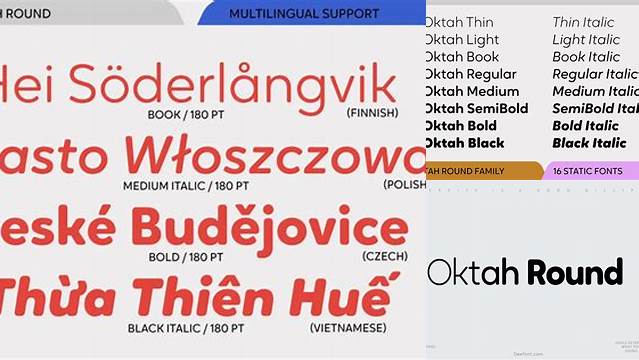
Introduction to Oktah Round Font Family
Oktah Round Font Family is a modern and versatile typeface that has garnered significant attention in the design world. Its clean, rounded lines and geometric structure make it a popular choice for a wide range of applications, from branding and logo design to web and print media. Its appeal lies in its ability to convey both a sense of professionalism and approachability, making it a valuable asset in any designer's toolkit. Understanding the Oktah Round Font Family requires delving into its characteristics, exploring its various weights and styles, and recognizing its impact on visual communication. The Oktah Round Font Family is not just a font; it's a design tool that can shape the personality of a project. Choosing the right font can make all the difference in how your message is received, and Oktah Round's versatility makes it a strong contender for many projects. We'll explore how this font has been used in various contexts, highlighting its strengths and potential limitations. By the end of this guide, you'll have a solid understanding of the Oktah Round Font Family and how to effectively utilize it in your design endeavors. Its balanced aesthetics make it suitable for body text as well as headlines, providing designers with a comprehensive solution for their typographic needs. From minimalist designs to more elaborate compositions, Oktah Round adapts seamlessly, enhancing readability and visual appeal. The font's rounded terminals add a touch of warmth, making it feel more inviting than some of the sharper, more angular fonts available. This friendly quality can be particularly beneficial in projects aiming to create a positive and welcoming impression. Its geometric foundation ensures clarity and legibility, even at smaller sizes, making it a reliable choice for a variety of applications. In the ever-evolving landscape of typography, Oktah Round stands out for its contemporary yet timeless design, offering a fresh perspective while maintaining a classic sensibility.
When diving into the specifics of the Oktah Round Font Family, several key features and characteristics immediately stand out. Firstly, the rounded terminals are a defining aspect, giving the font a softer, more approachable feel compared to fonts with sharp, angular edges. This makes it particularly effective in designs aiming for a friendly and welcoming tone. The geometric construction of the font is another critical element, providing a sense of structure and clarity. This ensures that the text remains legible and balanced, even at smaller sizes or in dense blocks of text. Each letterform is carefully crafted with precision, reflecting a commitment to both aesthetics and functionality. The font family typically includes a range of weights, from light to bold, offering designers versatility in their typographic choices. This allows for the creation of visual hierarchy and emphasis within a design, ensuring that key elements stand out. The inclusion of italic styles further expands the possibilities, providing options for nuanced expression and visual contrast. Oktah Round's balanced proportions make it suitable for both headlines and body text, a valuable trait for projects requiring a cohesive and unified look. Its clean lines and open counters (the spaces within letters like 'o' and 'p') contribute to its readability, even in challenging conditions. This is particularly important for web design, where text needs to be clear and easily digestible across various screen sizes and resolutions. The Oktah Round Font Family also tends to have a relatively generous x-height (the height of the lowercase letters), which enhances readability and gives the font a more contemporary appearance. This feature contributes to its overall legibility and makes it a practical choice for extended reading. Moreover, the font’s versatility extends to its compatibility with different design styles and aesthetics. Whether used in a minimalist, modern design or a more complex, illustrative composition, Oktah Round integrates seamlessly, adding a touch of sophistication and clarity. Its adaptability is one of the key reasons for its popularity among designers. In the realm of typography, Oktah Round strikes a harmonious balance between form and function, offering a design solution that is both visually appealing and highly practical. Its unique blend of softness and structure makes it a standout choice for a wide array of projects.
Best Practices for Using Rounded Fonts
Using rounded fonts like the Oktah Round Font Family effectively requires understanding their unique characteristics and applying best practices in typography. Rounded fonts, with their soft edges and approachable aesthetic, can add a friendly and modern touch to your designs. However, they also have certain limitations and considerations that you should keep in mind. One of the primary best practices is to consider the overall tone and message of your design. Rounded fonts tend to convey a sense of warmth, friendliness, and approachability, making them ideal for projects that aim to create a positive and welcoming impression. They work well in designs targeting children, creative industries, or brands that want to project a modern and innovative image. However, rounded fonts may not be the best choice for projects that require a more serious, formal, or authoritative tone. In such cases, a more traditional serif or a sharp sans-serif typeface might be more appropriate. Legibility is another crucial factor to consider. While Oktah Round Font Family is generally legible, rounded fonts can sometimes be less readable than fonts with sharper, more distinct letterforms, especially at smaller sizes or in dense blocks of text. To ensure optimal legibility, pay close attention to letter spacing, line height, and font size. Increase letter spacing and line height if necessary to improve readability, and avoid using rounded fonts in very small sizes. Contrast is also essential. Pair rounded fonts with contrasting elements, such as bold colors or sharp geometric shapes, to create visual interest and balance. Avoid using rounded fonts exclusively throughout your design, as this can sometimes create a monotonous or overly soft look. Mix rounded fonts with other typeface styles to create a more dynamic and engaging composition. When using rounded fonts in headlines, consider using a bolder weight to make them stand out. In body text, a regular or light weight is usually preferable for readability. Experiment with different weights and styles to achieve the desired effect. Also, be mindful of the context in which the font will be used. Rounded fonts work well in both print and digital media, but it's essential to test how they look in different environments. Web fonts, in particular, should be optimized for readability across various browsers and devices. By following these best practices, you can effectively use rounded fonts like Oktah Round Font Family to create visually appealing and engaging designs that convey the right message.
The Oktah Round Font Family is a versatile and modern typeface that can add a touch of friendliness and sophistication to a wide range of design projects. Its rounded terminals and geometric construction make it a popular choice for branding, web design, and print media. While finding free downloads may require some effort, the font's unique characteristics and readability make it a valuable asset for designers. If you're unable to find Oktah Round, exploring alternatives like Montserrat, Lato, and Open Sans can provide similar aesthetic qualities and versatility. Remember to always verify the licensing terms before using any font in your projects, especially for commercial purposes. When using rounded fonts like Oktah Round, consider the overall tone of your design and apply best practices in typography to ensure optimal legibility and visual appeal. By understanding the font's features, exploring alternatives, and following best practices, you can effectively utilize Oktah Round Font Family (or its counterparts) to create compelling and engaging designs. The ability to choose and implement fonts strategically is a cornerstone of effective design, and Oktah Round offers a compelling option for those seeking a blend of modern aesthetics and approachable warmth. Its widespread use across various industries is a testament to its adaptability and timeless appeal. From startups to established brands, Oktah Round has proven its worth as a reliable and visually pleasing typeface. As you embark on your design journey, remember that typography is more than just selecting a font; it's about crafting a visual narrative that resonates with your audience. Oktah Round, with its gentle curves and balanced structure, can be a valuable tool in your arsenal, helping you communicate your message with clarity and style. By considering the principles discussed in this guide, you can make informed decisions about font selection and create designs that are both aesthetically pleasing and functionally effective. The world of typography is vast and ever-evolving, but fonts like Oktah Round provide a solid foundation for creating impactful visual communication. So, whether you're designing a logo, a website, or a print brochure, remember the power of typography and the potential of the Oktah Round Font Family to elevate your work.